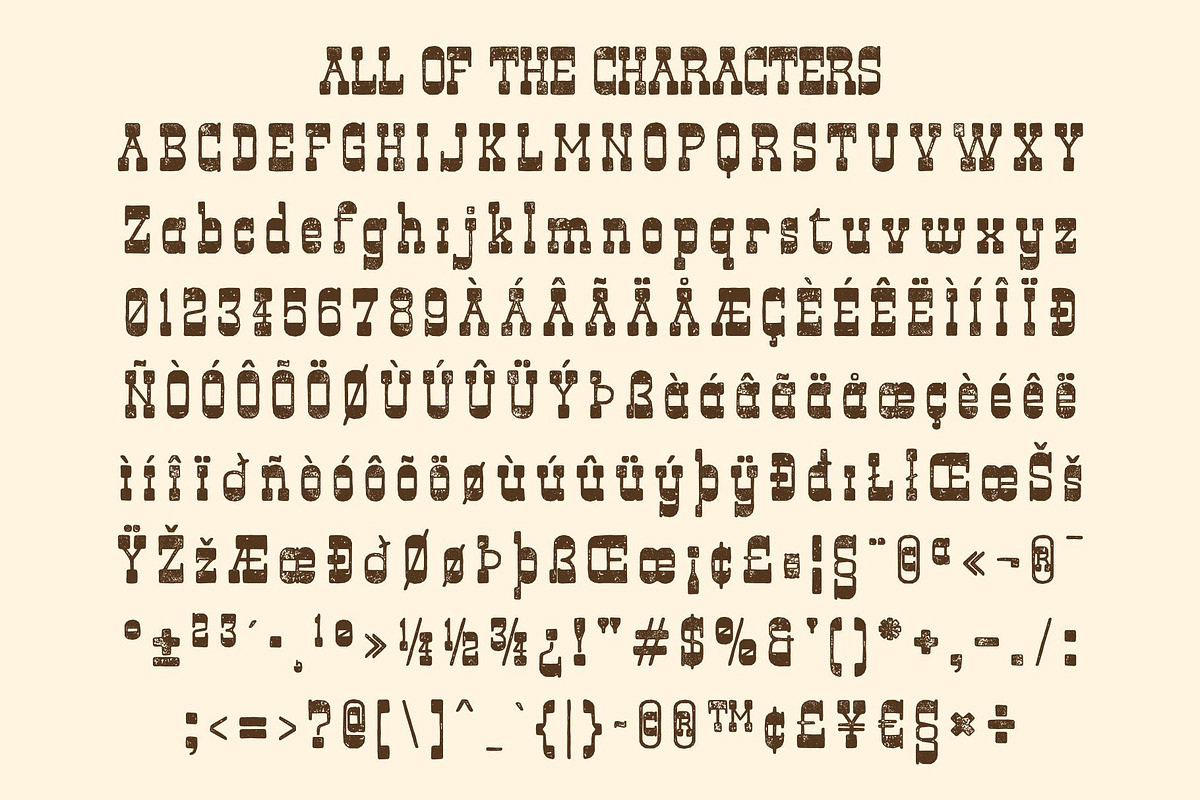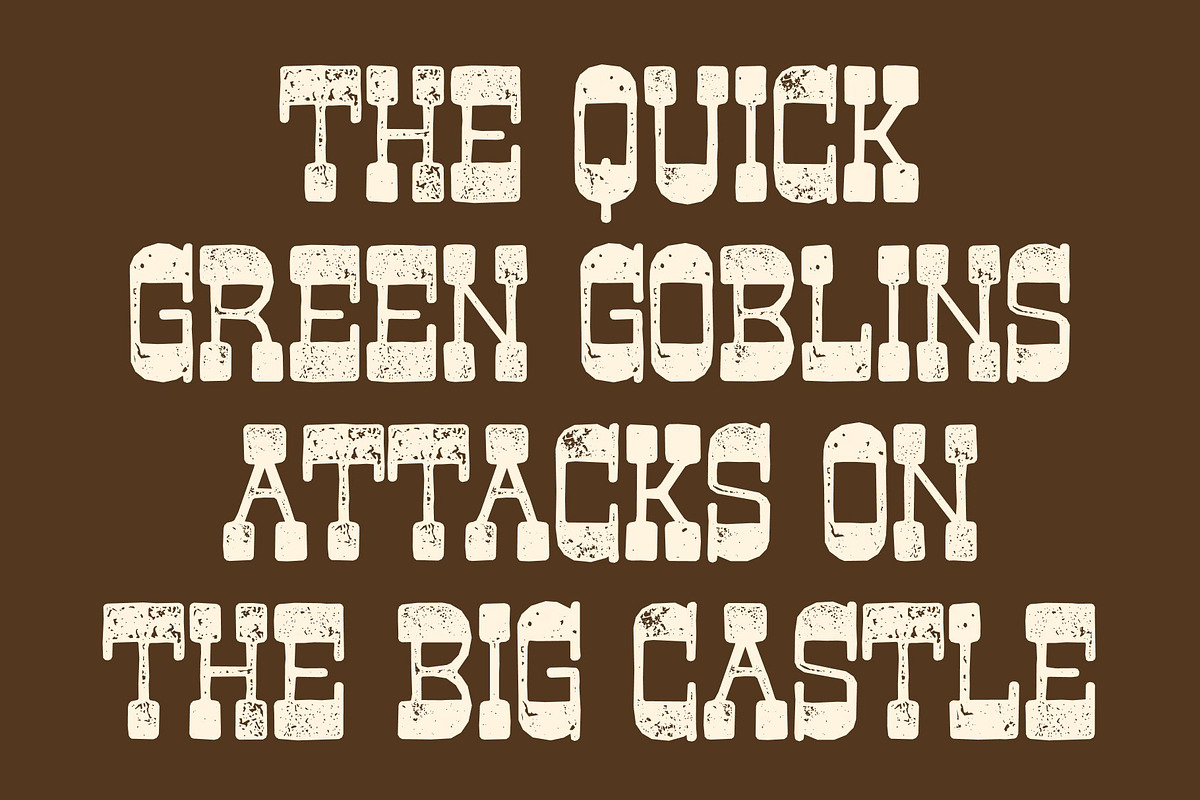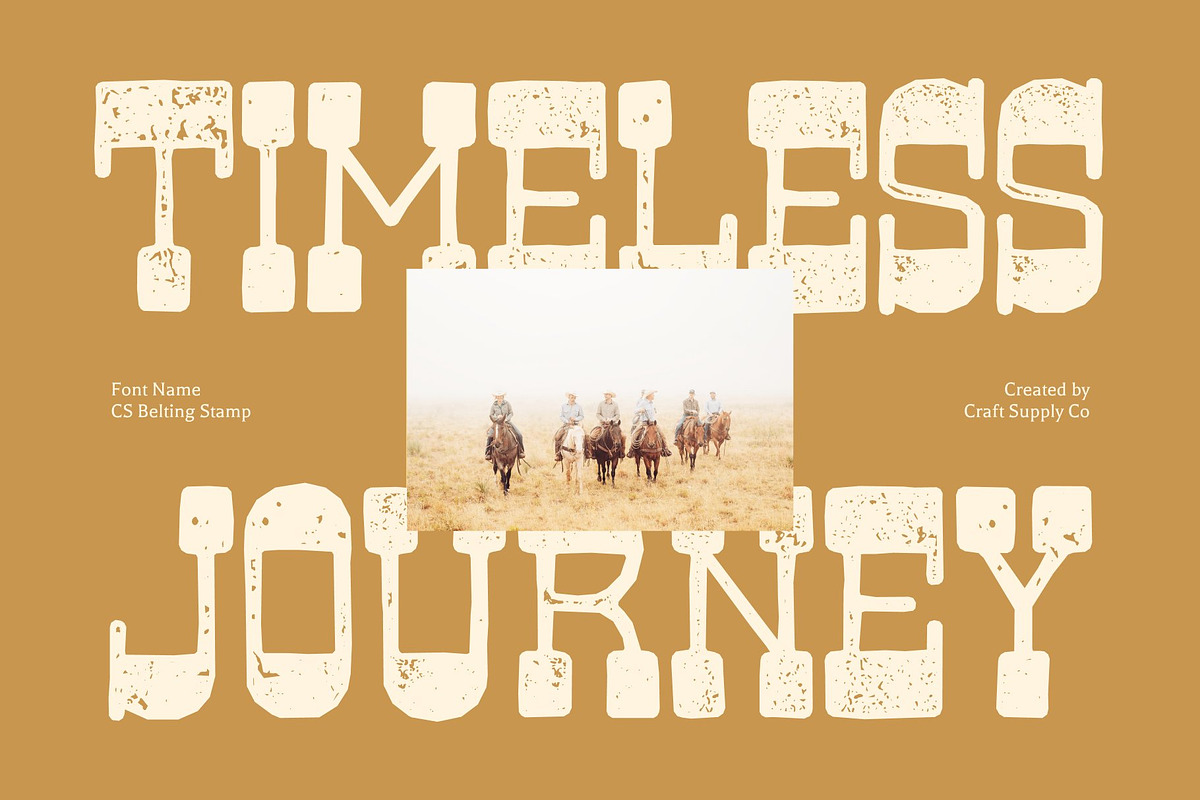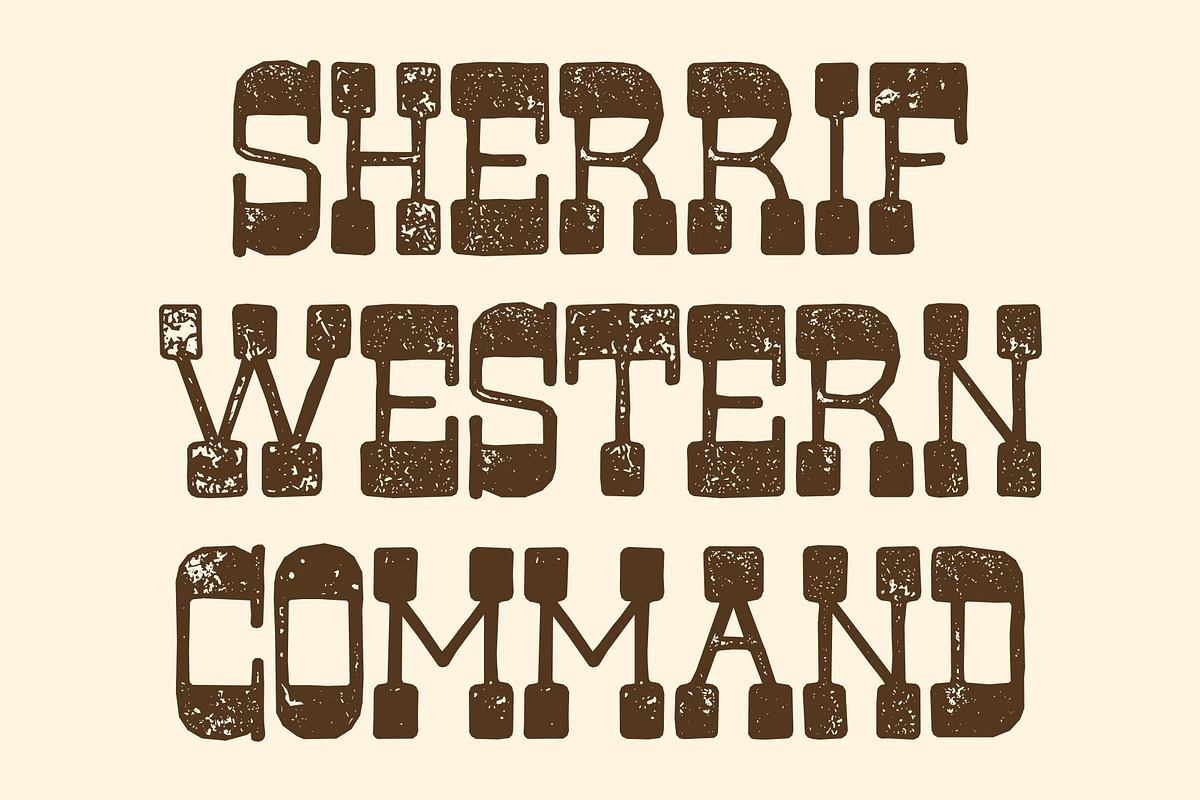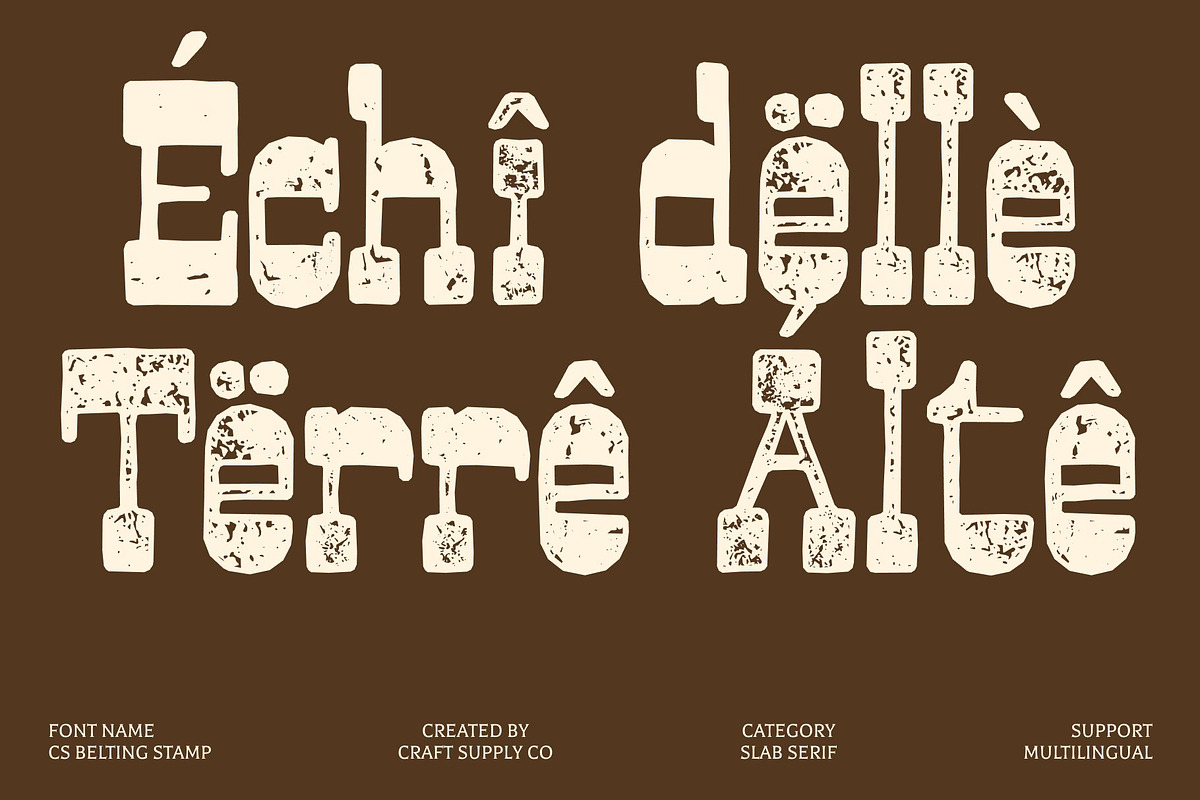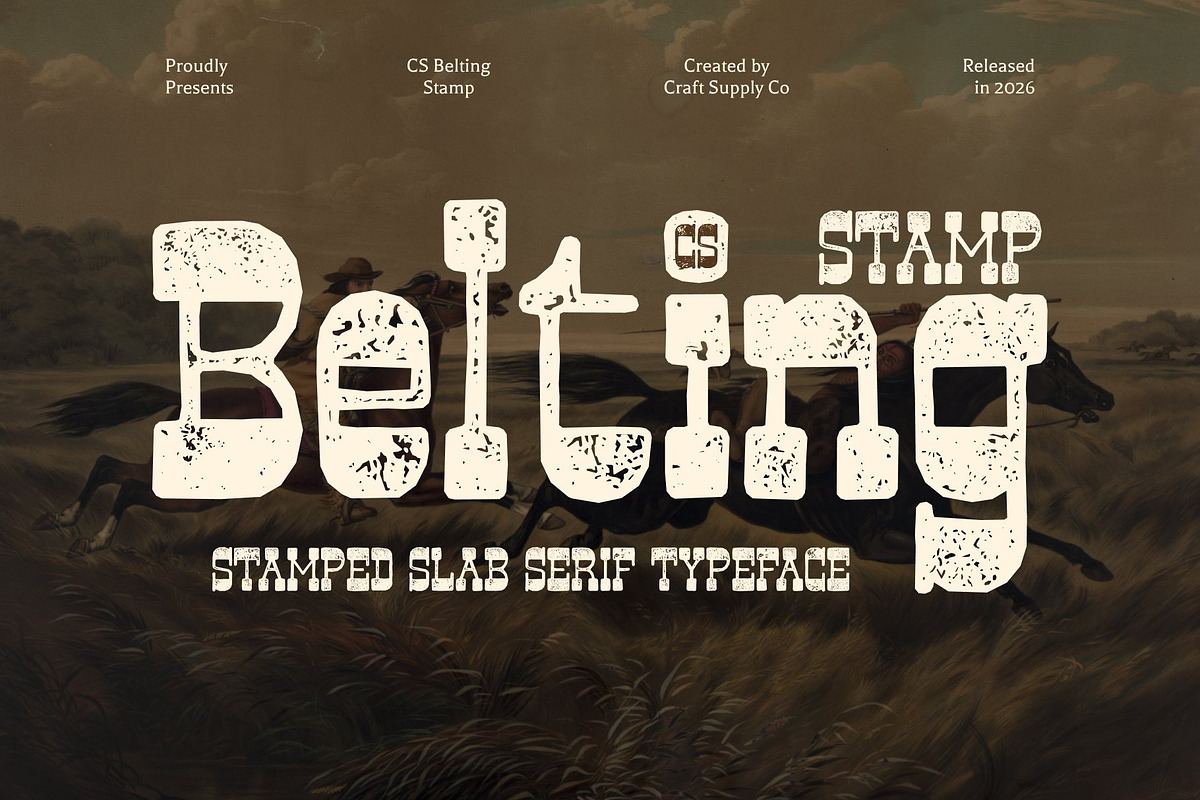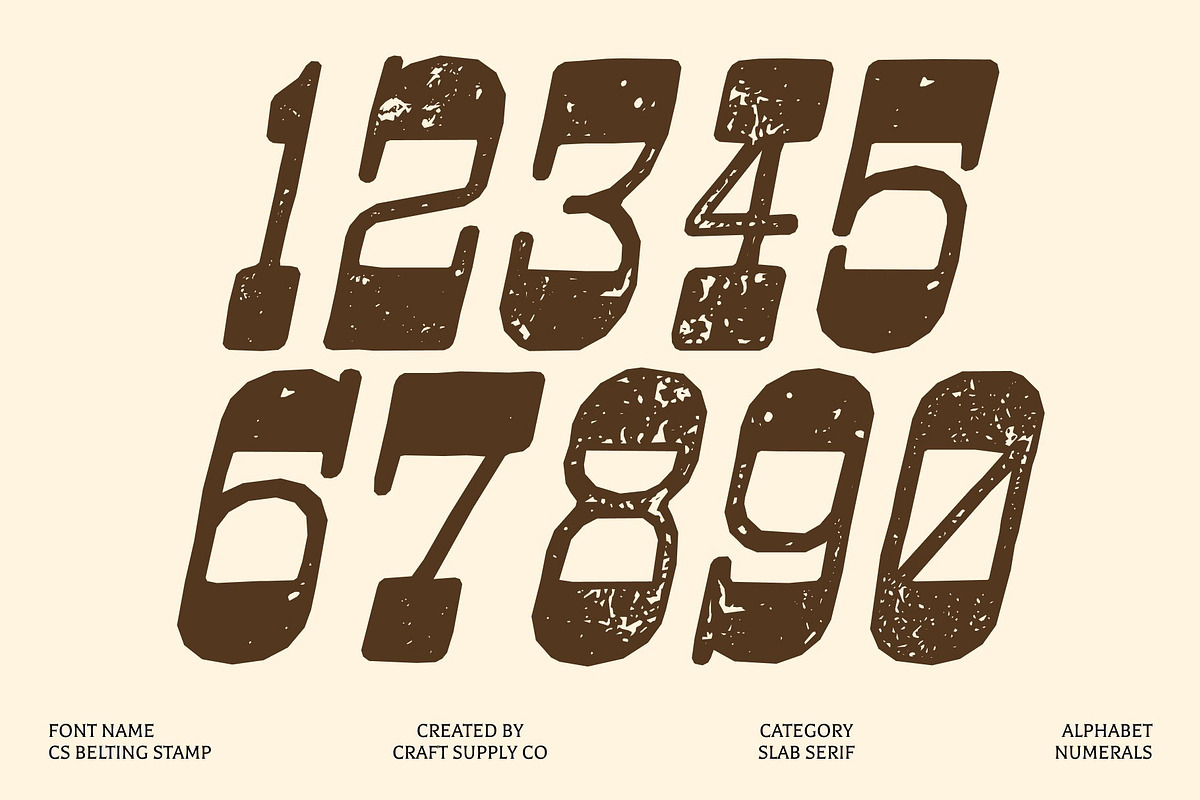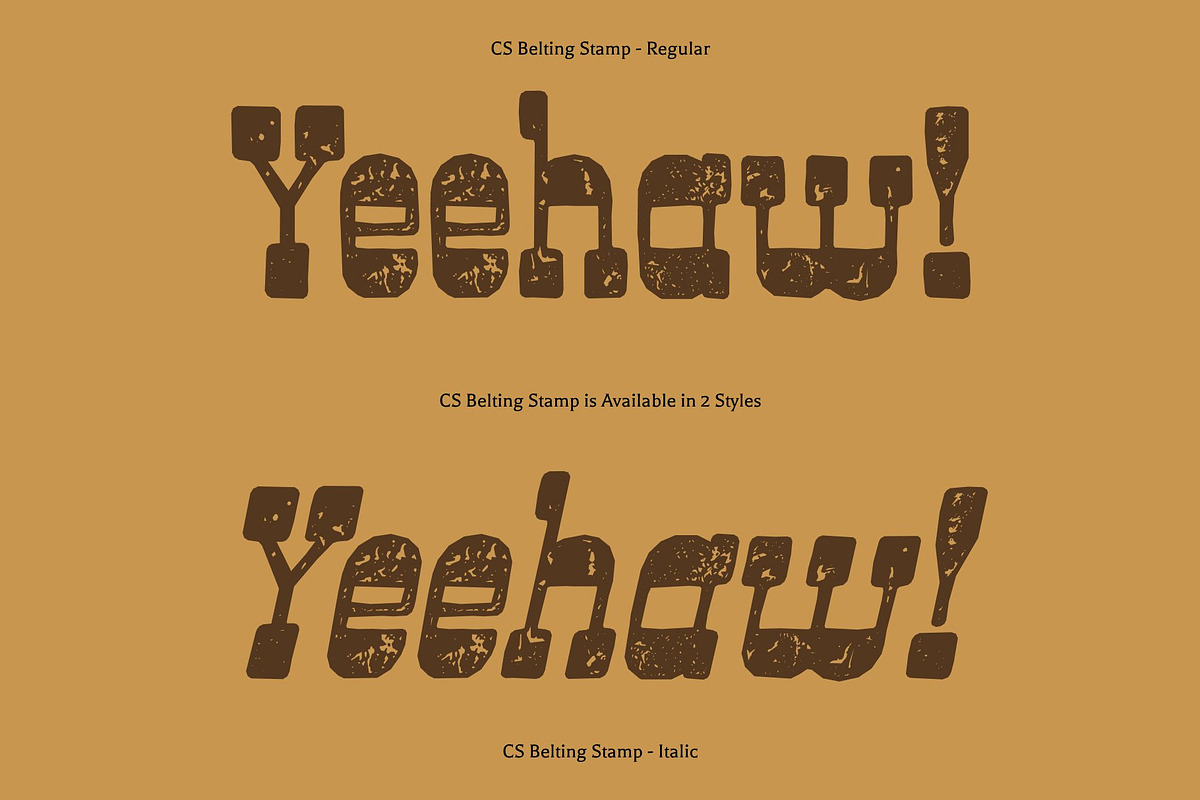
CS Belting Stamp
CS Belting Stamp – Rugged Western Spirit in Bold Display Form
Western Display Font with Frontier Character This is a bold western display font that channels the untamed spirit of the Wild West. Inspired by classic frontier signage and rugged cowboy culture, this font delivers a strong, confident presence rooted in history and reverse-contrast styling. Its distinctive slab-like serifs and solid construction evoke the look of old wanted posters, saloon signage, and handcrafted.
Slab Serifs with Wide, Commanding Letterforms The defining feature of lies in its bold slab serifs and wide, commanding letterforms. These broad proportions create a sturdy, authoritative appearance that feels grounded and dependable. The generous width enhances legibility and impact, ensuring each letter stands out clearly in large-scale display use while reinforcing its classic Western identity.
Vintage Stamp Texture with Cowboy Grit Enhanced with a stamped texture, gains a rugged, timeworn character that feels authentically aged. Subtle imperfections, rough edges, and distressed details mimic traditional ink stamping and old print techniques, adding depth and personality to every letter.
Perfect for Posters, Branding, and Vintage Themes Designed for high-impact visual applications, excels in posters, branding, logos, packaging, and vintage-themed projects. Its bold western flair makes it especially suitable for rodeo events, outdoor brands, whiskey and craft. With its strong structure and stamped vintage texture, this font delivers a powerful blend of nostalgia, toughness, and visual authority.
CS Belting Stamp Regular
CS Belting Stamp Italic